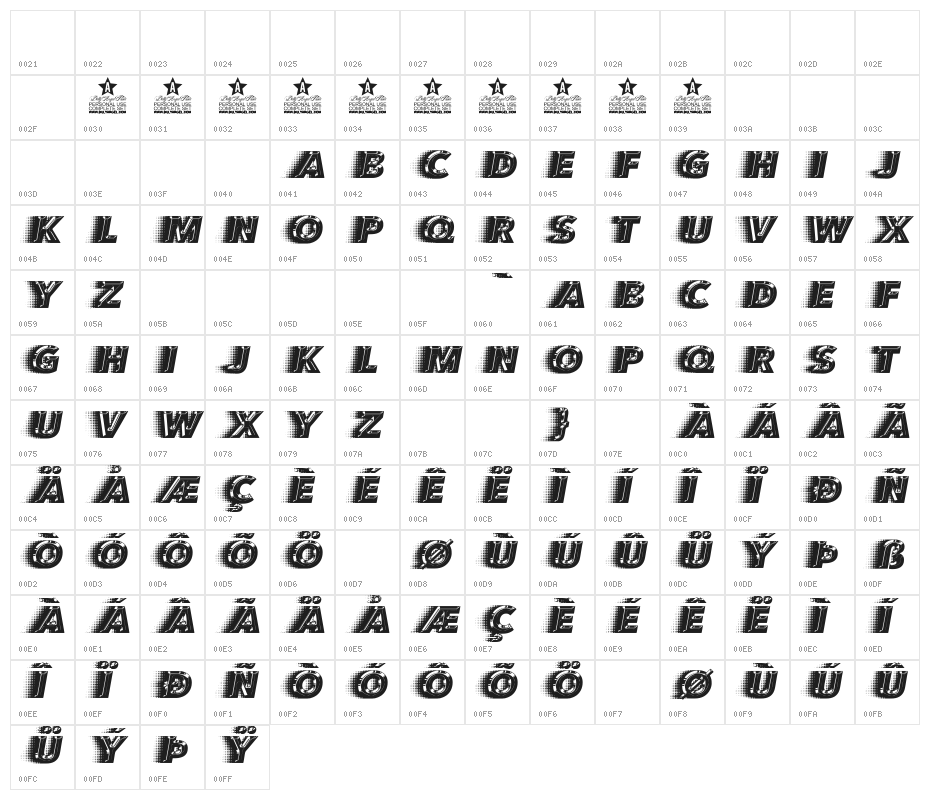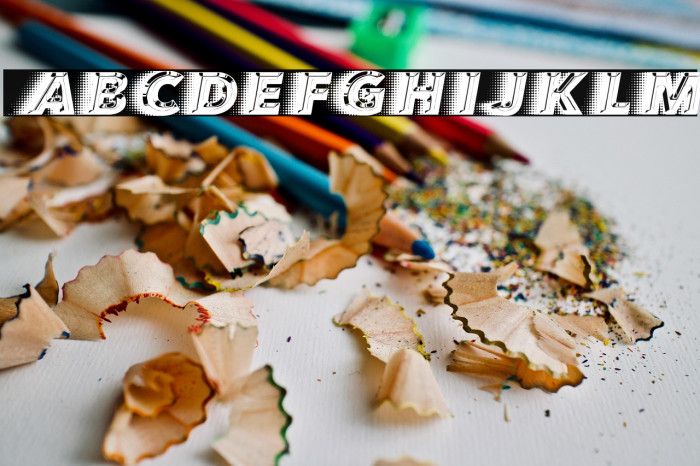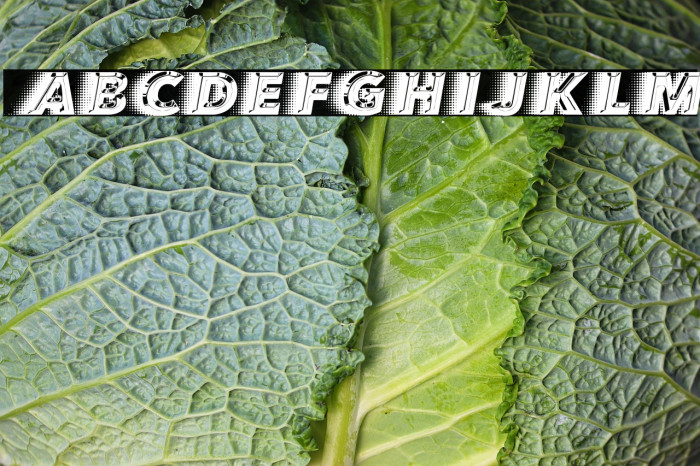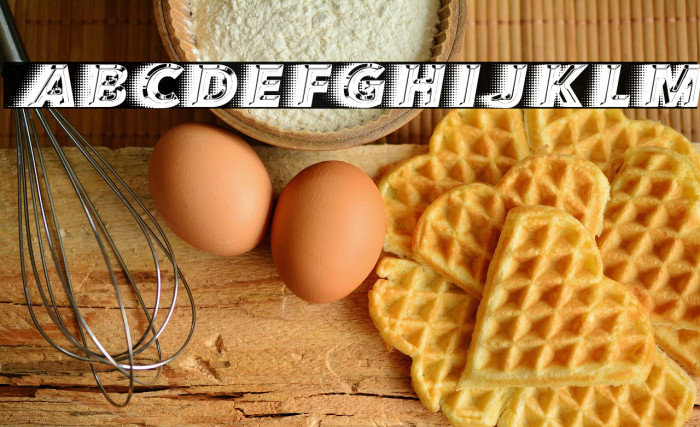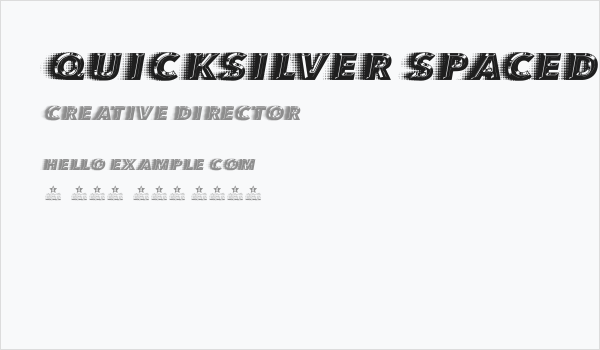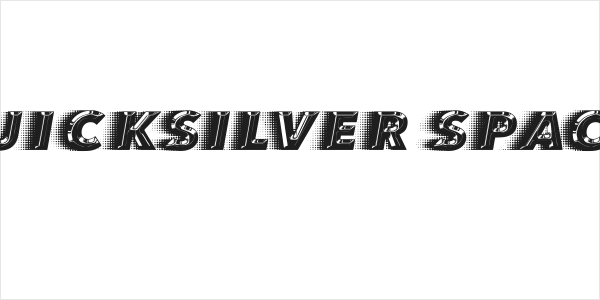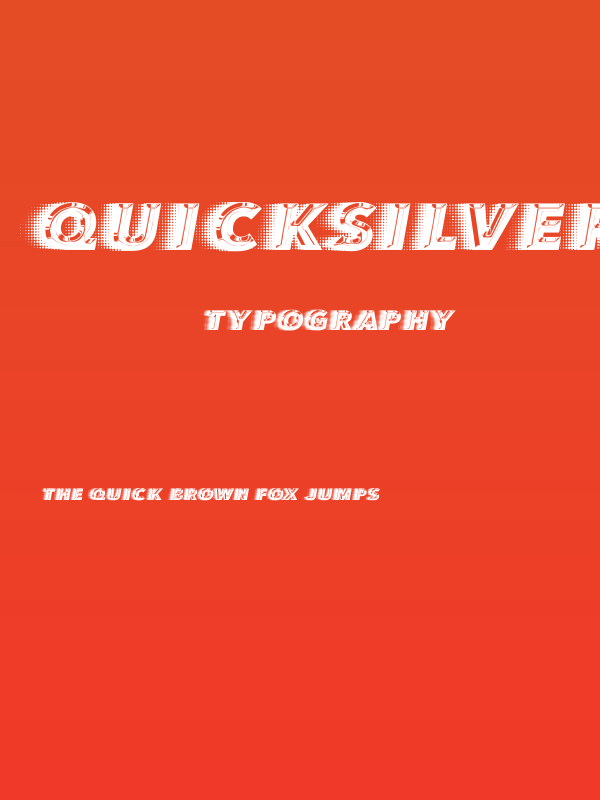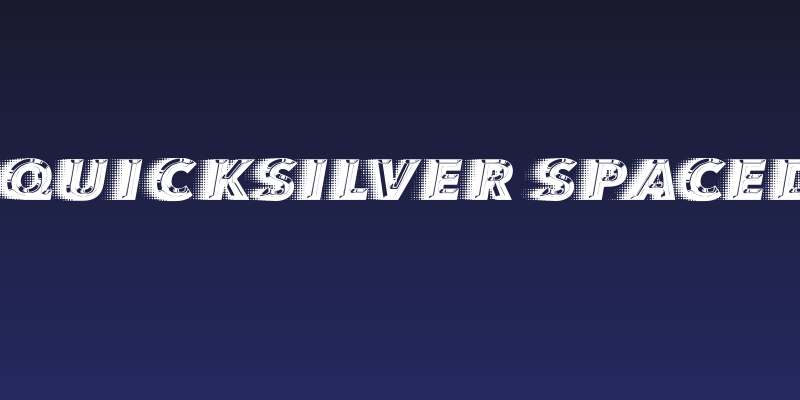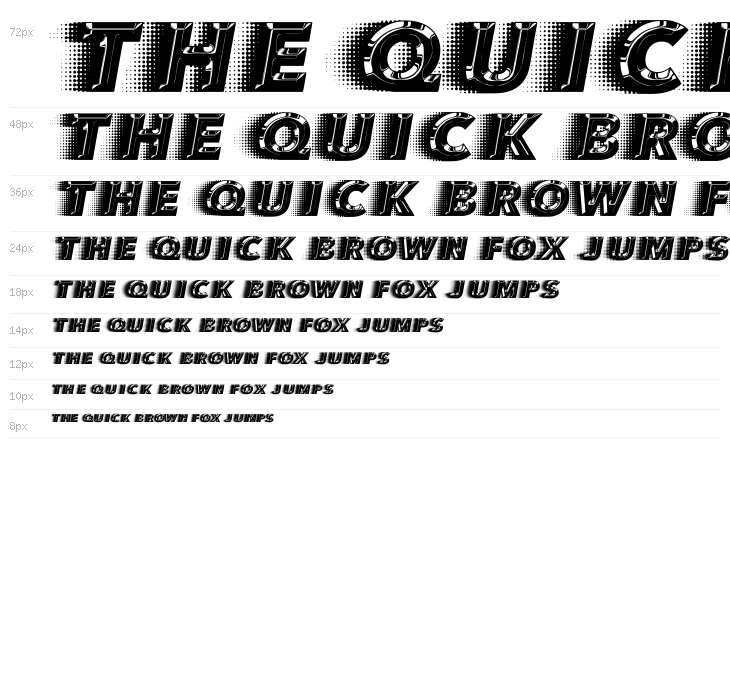
QUICKSILVER SPACED Font
QUICKSILVER SPACED Description
This font features a bold and dynamic style with a distinct halftone pattern that gives it a retro, comic book-like appearance. The letters are uppercase and have a three-dimensional effect, achieved through shading and the use of diagonal lines. The font's design is eye-catching and energetic, making it suitable for projects that require a strong visual impact. The characters are evenly spaced, ensuring readability while maintaining the font's unique aesthetic. Its boldness and distinct style make it ideal for use in headlines, posters, and other creative projects where a vintage or playful look is desired.
| Use Case | Headlines, Posters, Logos |
| Proposed Projects | Ideal for comic book covers, retro-themed posters, and eye-catching headlines. |